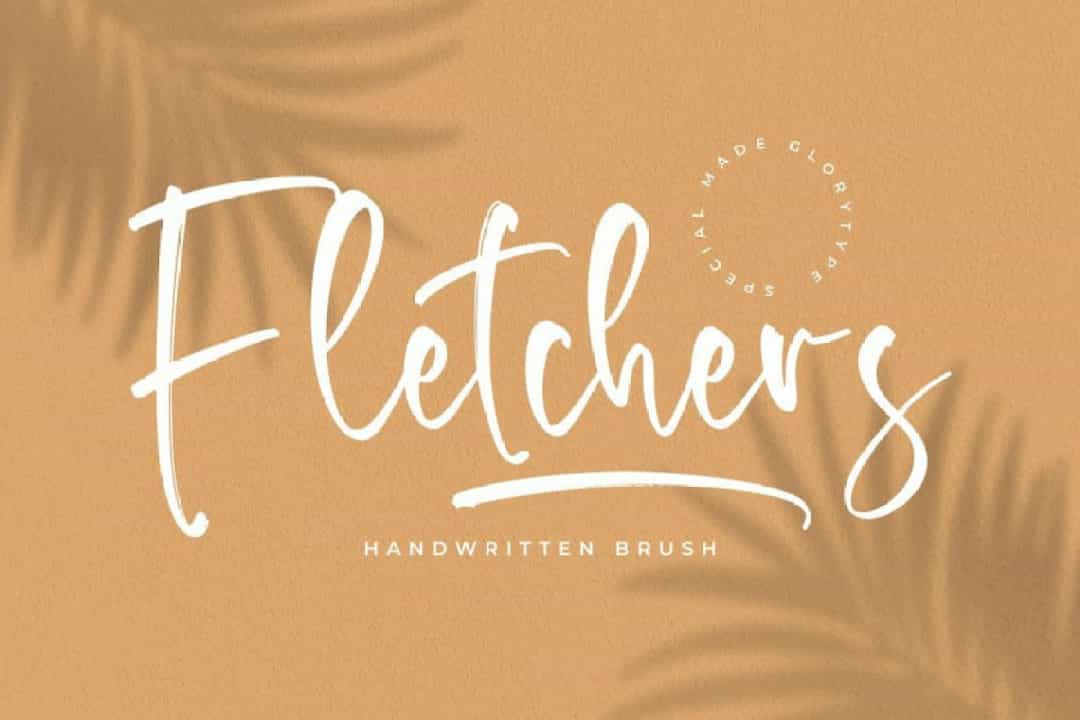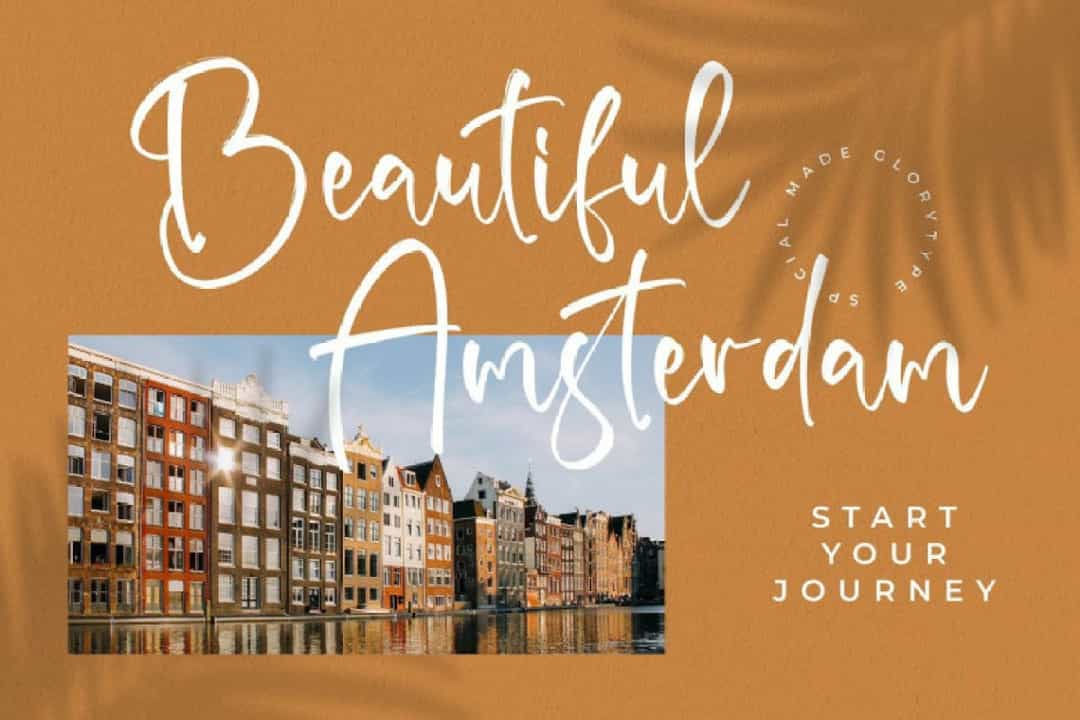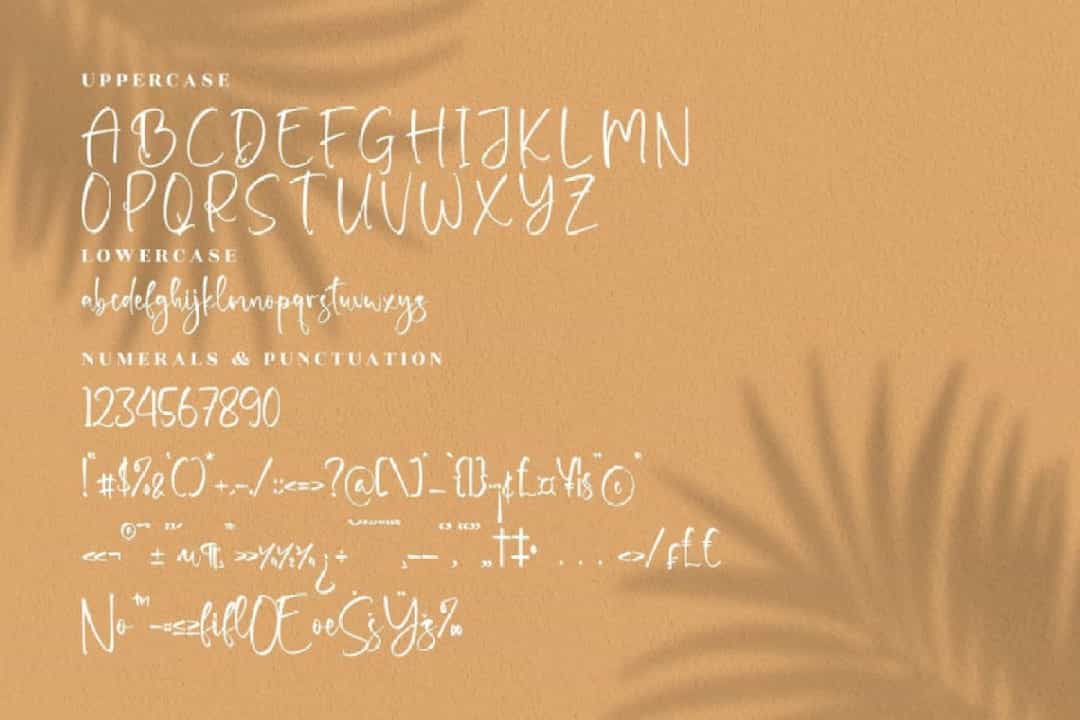
Fletchers is a Handwritten Brush Font created by Glorytype Studio that can be used for many different projects requiring an elegant script font, including logos, branding designs for homeware packaging and posters. Quotes T-shirts shopping bags covers for books names greeting cards invitation cards labels watermarks photography occasions special events etc…